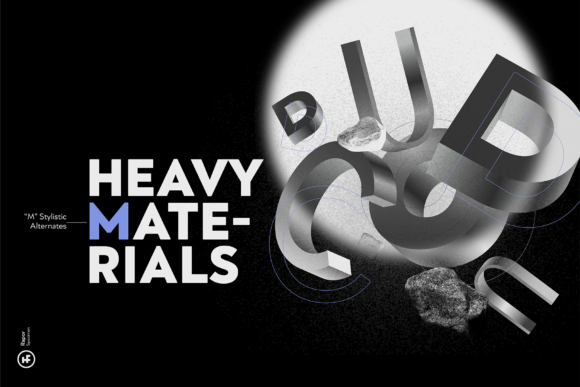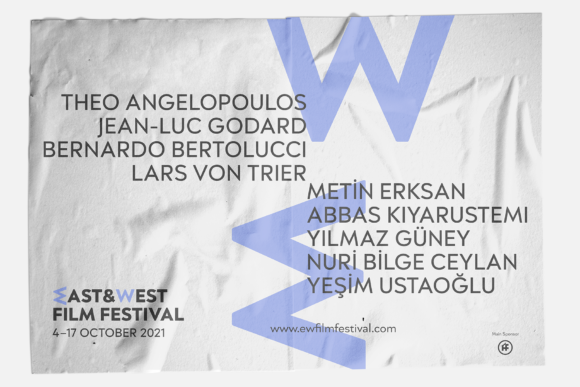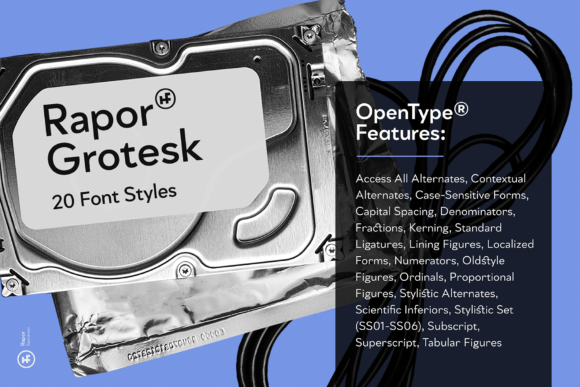
Introduction to Rapor Font
Have you ever stared at a blank canvas, trying to bring your creative vision to life? The blank page can be intimidating, but the right font can be the spark that sets your project ablaze. For designers, finding the perfect font can be a game-changer, elevating your creation from ordinary to extraordinary.
| 👤 Author | Hurufatfont |
That’s where the Rapor Font comes in – a modern, simple, and cool display font that’s sure to make your project stand out. With its strong visual effect, this font is perfect for designers looking to add a touch of sophistication to their work. Whether you’re working on a creative project with a transparent background or need a high-quality font for your next design resource, Rapor Font is an excellent choice.
Key Features of Rapor Font
- The font includes 12 styles, ranging from light to bold, providing designers with flexibility and versatility for their creative projects.
- This font is ideal for use in digital design, such as logos, icons, and graphics, due to its modern and sleek aesthetic.
- Rapor Font is a unique and creative design resource that can help elevate any project, from branding to advertising.
Honest Review: Rapor Font
I recently had the opportunity to work with the Rapor Font, and I must say it’s been a game-changer for my creative projects. The font’s unique blend of modern and sleek lines makes it perfect for a wide range of designs.
- High-quality design: The Rapor Font is incredibly detailed and visually appealing, making it a great addition to any design project.
While the Rapor Font is an excellent design resource, I do wish it came in more font styles. Currently, it’s only available in a single weight, which can limit its versatility.
Overall, I’m thoroughly impressed with the Rapor Font and would highly recommend it to any designer looking for a high-quality, modern font. Its free download and transparent background make it an excellent addition to any creative project.
Rapor Font
Rapor Font is a high-quality design resource perfect for any creative project. This free download offers a unique and stylish look that can elevate your work.
Tips for Getting the Most Out of Rapor Font
To get the most out of Rapor Font, make sure to use it on a transparent background to showcase its unique design. You can also experiment with different font sizes and styles to create a visually appealing effect.
Rapor Font is perfect for a variety of creative projects, including logos, business cards, and infographics. Its high-quality design and transparent background make it an ideal choice for any project where visual impact is key.